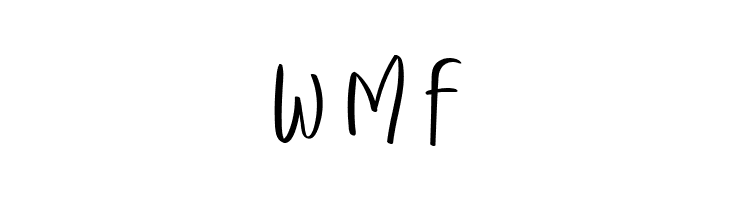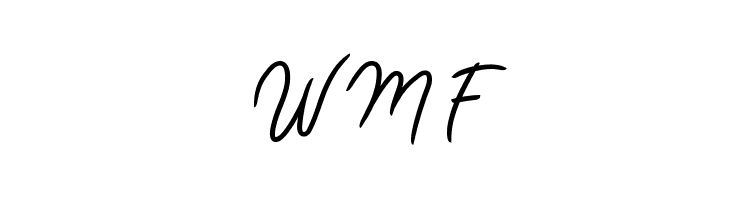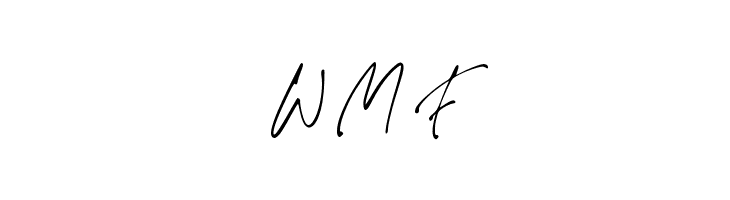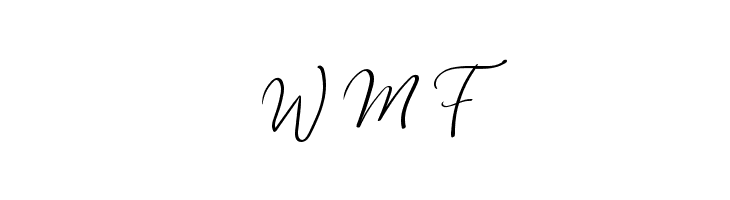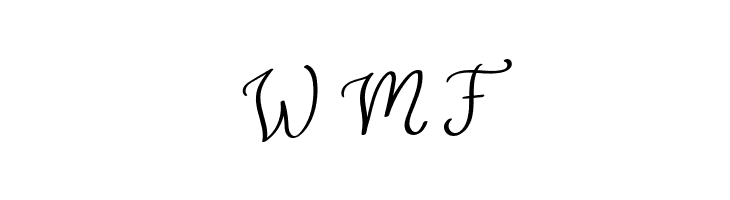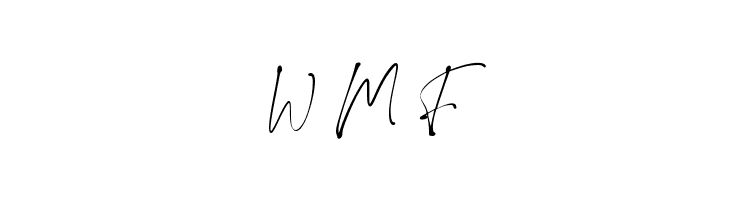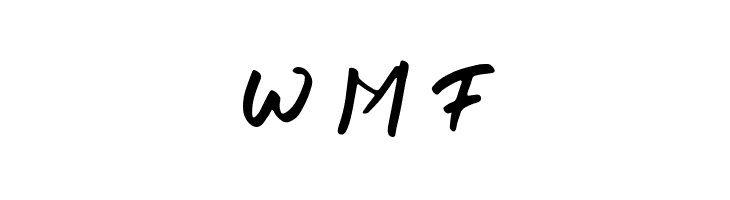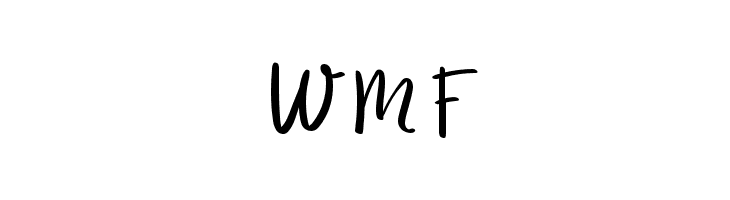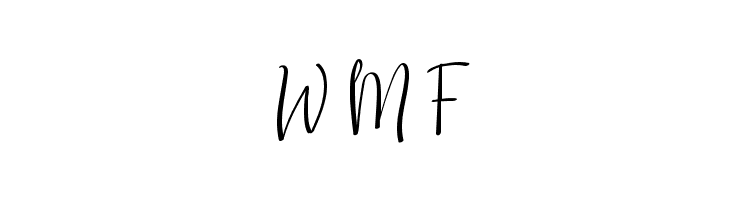
A bold, hand-drawn font with an energetic and expressive style.
A bold, dynamic brush-style font with expressive strokes and a hand-painted look.
A bold, energetic script font with fluid strokes and a dynamic style.
A bold, brush-style font with dynamic and energetic strokes.
A playful and energetic handwritten font with fluid strokes.
A bold, dynamic brush script with expressive strokes and a hand-painted look.
A modern, elegant script font with flowing, cursive characters and sophisticated swashes.
A delicate, flowing script font with elegant curves and a handwritten style.
A lively, cursive font with elegant, flowing letters and a dynamic style.
A dynamic, cursive handwritten font with fluid strokes.
A graceful and fluid script font with a natural handwritten style.
A playful handwritten font with bold, rounded strokes and a casual feel.
A charming and elegant handwritten font with fluid, cursive strokes.
A bold, brushstroke font with a textured, hand-painted look.
A fluid, handwritten font with a casual and elegant style.
A dynamic, brush-style handwritten font with expressive strokes.
A bold, playful handwritten font with brush-like strokes.
An elegant script font with flowing, connected strokes and a sophisticated appearance.
A graceful, flowing script font with elegant curves and a handwritten feel.
A playful and romantic cursive script font with elegant, flowing strokes.
A cursive, handwritten font with elegant, flowing strokes.
A bold, hand-painted style font with a lively and energetic appearance.
A dynamic, handwritten-style font with bold strokes and a casual yet sophisticated look.
A modern, flowing script font with elegant, interconnected letters.
A flowing, handwritten font with elegant, elongated strokes and a casual sophistication.
A playful, handwritten font with smooth, flowing curves and a friendly feel.
A bold, brushstroke-style font with dynamic and artistic flair.
A charming and elegant handwritten font with fluid, graceful strokes.
A playful, handwritten font with dynamic strokes and a casual style.
A dynamic and elegant script font with fluid, cursive strokes.
A modern, elegant handwritten font with fluid, dynamic strokes.